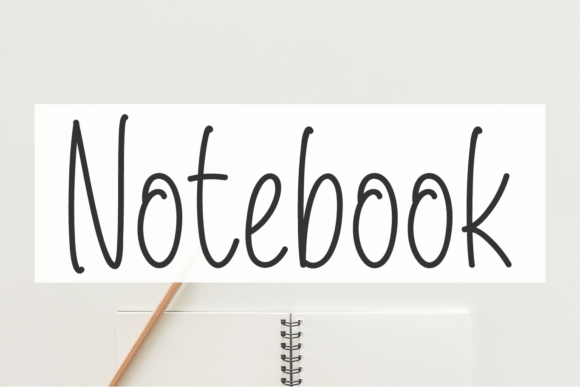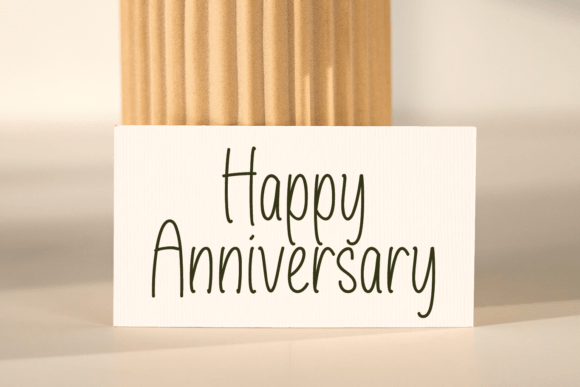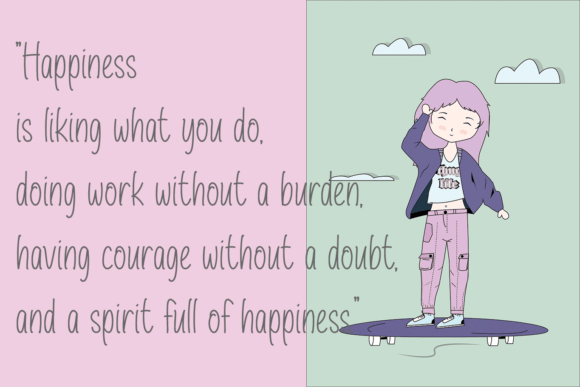
About Notebook Font
Notebook, a minimal and neat handwritten font, presents itself as a versatile and understated choice suitable for a broad spectrum of design projects. With its simplicity and cleanliness, Notebook seamlessly blends into a variety of creative endeavors, allowing your projects to stand out in a subtle yet impactful way.
The beauty of Notebook lies in its minimal design, making it easy to pair with a large set of projects. Whether you’re working on branding, web design, social media graphics, or print materials, Notebook contributes a sense of simplicity and neatness that enhances the overall aesthetic.
Consider incorporating Notebook into your creative ideas where a handwritten font with a clean and minimal look can make a difference. From crafting modern logos to designing elegant stationery, Notebook adds a touch of sophistication to your projects without overwhelming the visual composition.
The minimal and neat characteristics of Notebook extend its applicability to various design contexts. Whether you’re creating digital content for websites or print materials like brochures and flyers, Notebook brings a sense of order and elegance to your typography.
In essence, Notebook is more than just a font; it’s a design element that effortlessly elevates your projects with its minimal and neat handwritten style. Add Notebook to your creative toolkit, and observe how it subtly makes your designs stand out, adding a touch of simplicity and sophistication to your visual compositions.